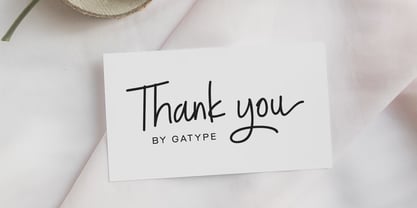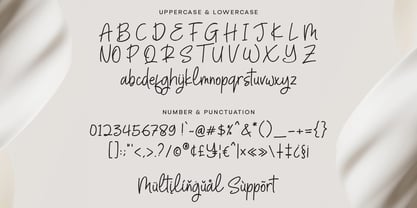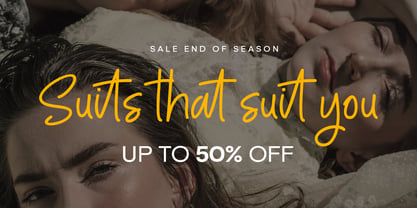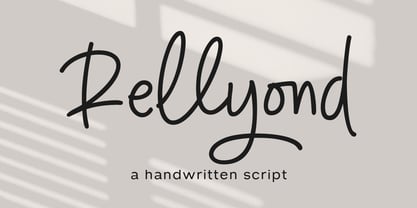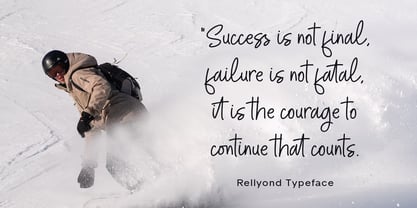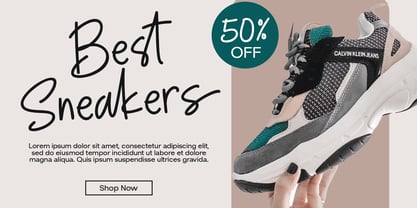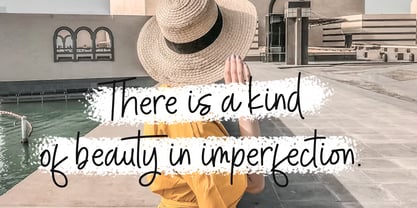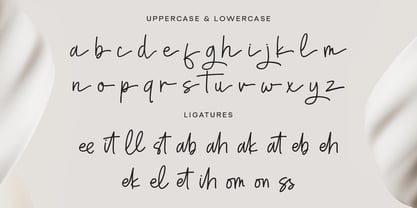
Rellyond
by Gatype
The Rellyond Font Family was designed by khaidir and published by Gatype. Rellyond contains 1 styles. More about this family
Rellyond is a Handwritten script font characterized by a single-line stroke with consistent thickness throughout. It offers an elegant, modern, and relaxed feel, making it a great choice for various design projects such as branding, logos, invitations, packaging, and social media.